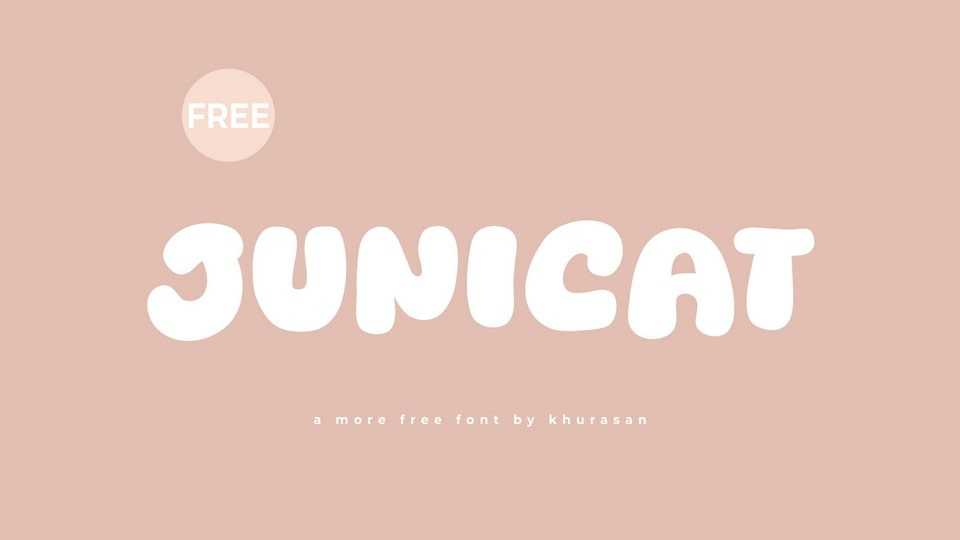
Download Junicat font, a playful and rounded hand-drawn cartoon typeface that injects a sense of whimsy and charm into your designs. The font is the perfect choice for projects that demand a friendly and animated touch, from comic book captions to vibrant children’s book illustrations.